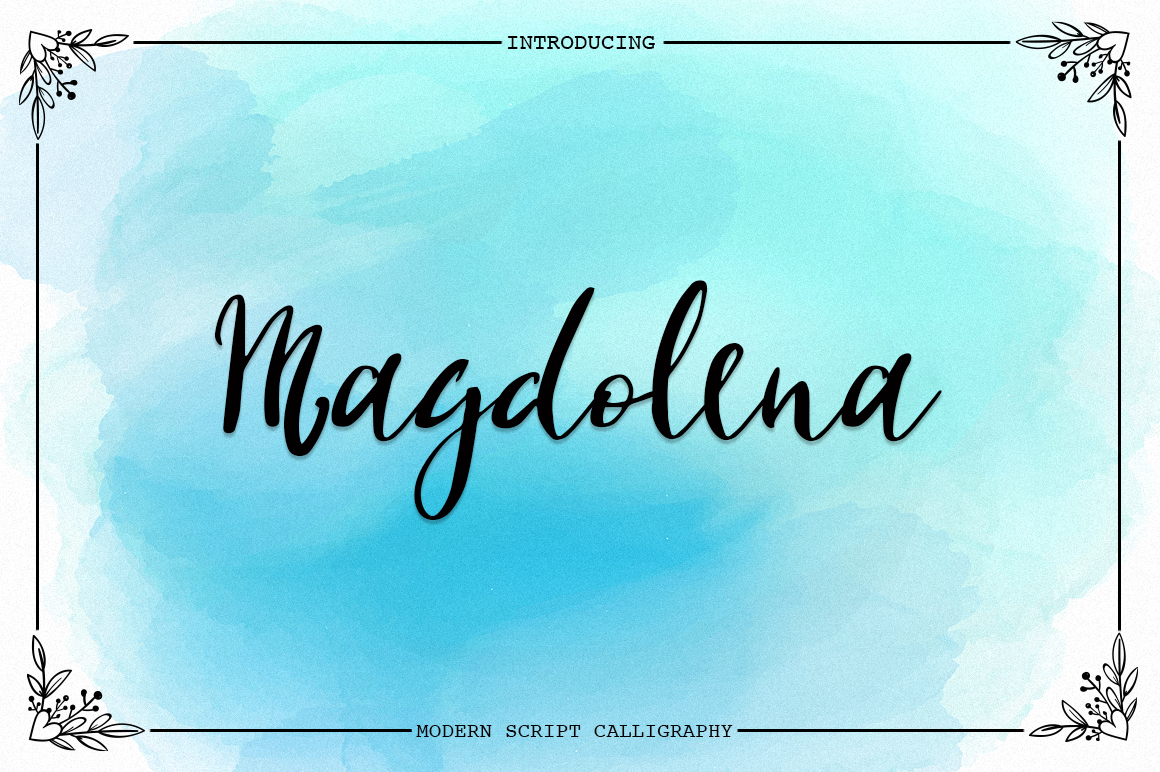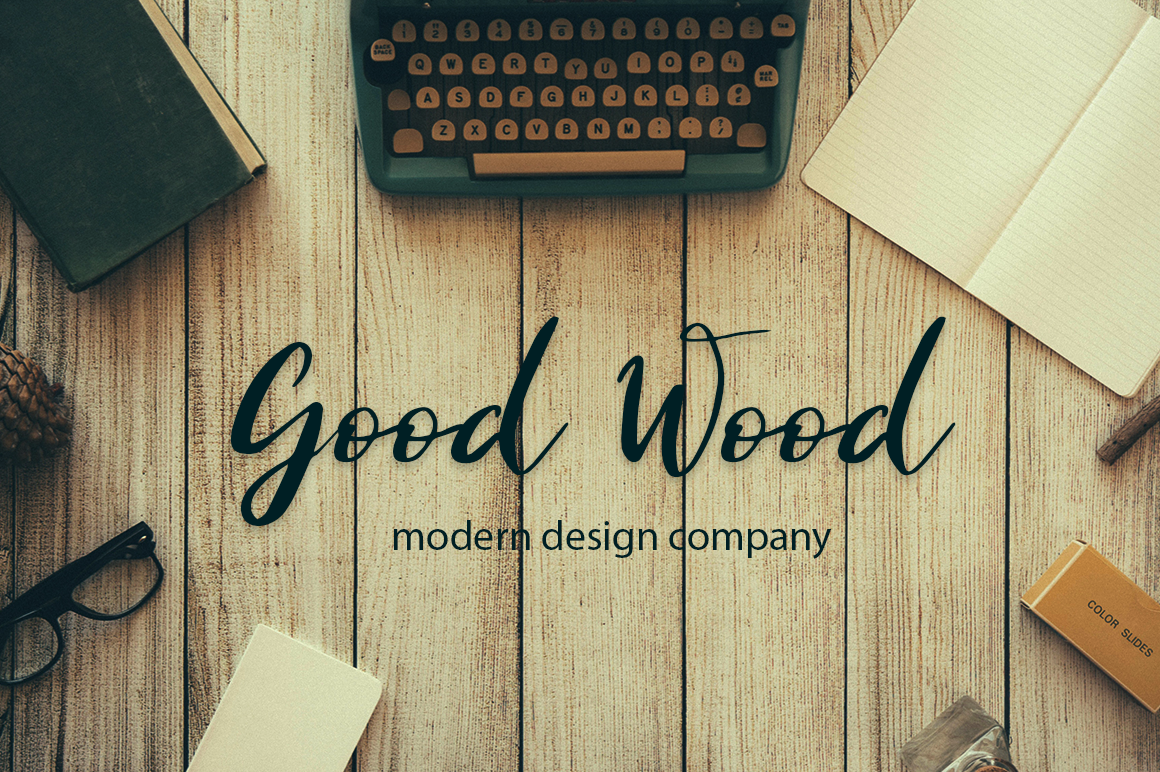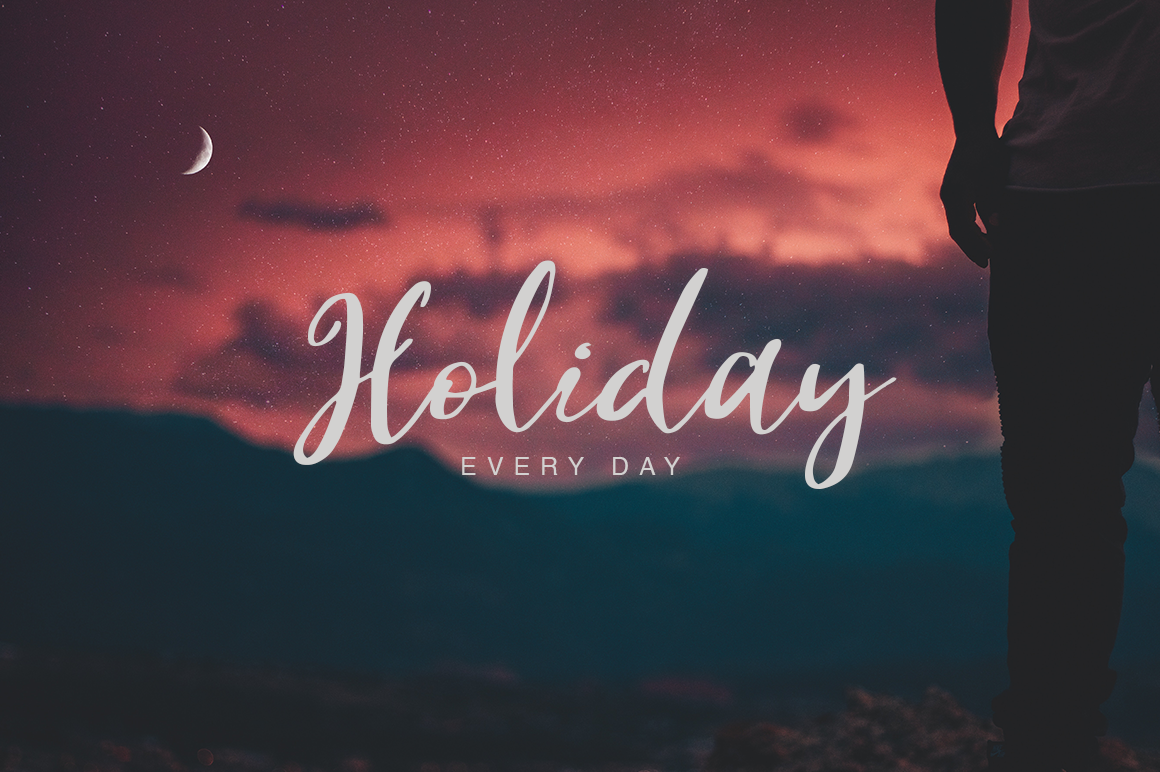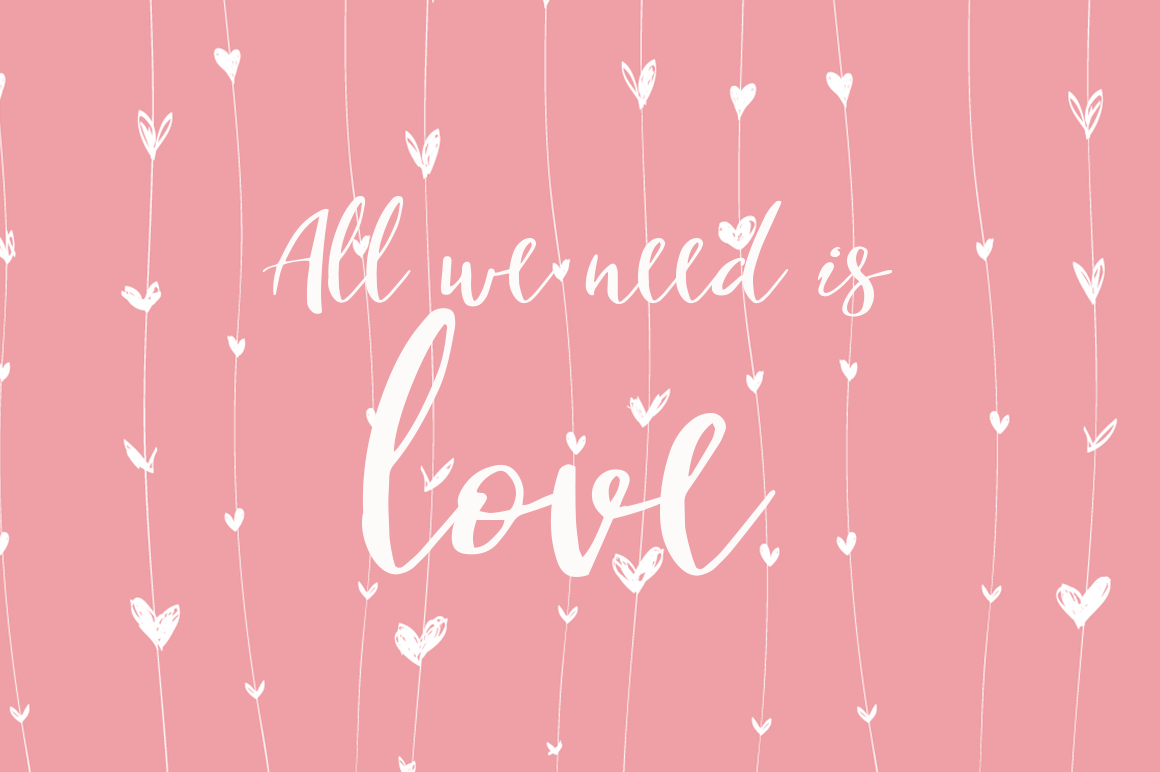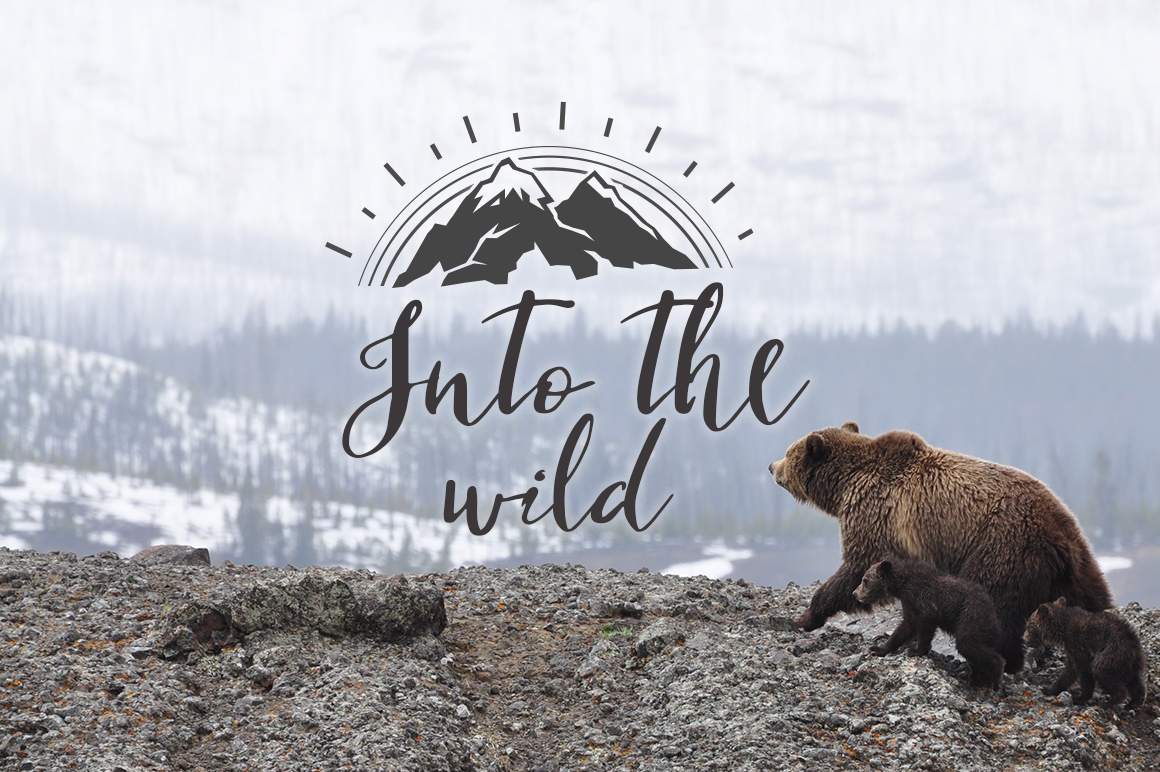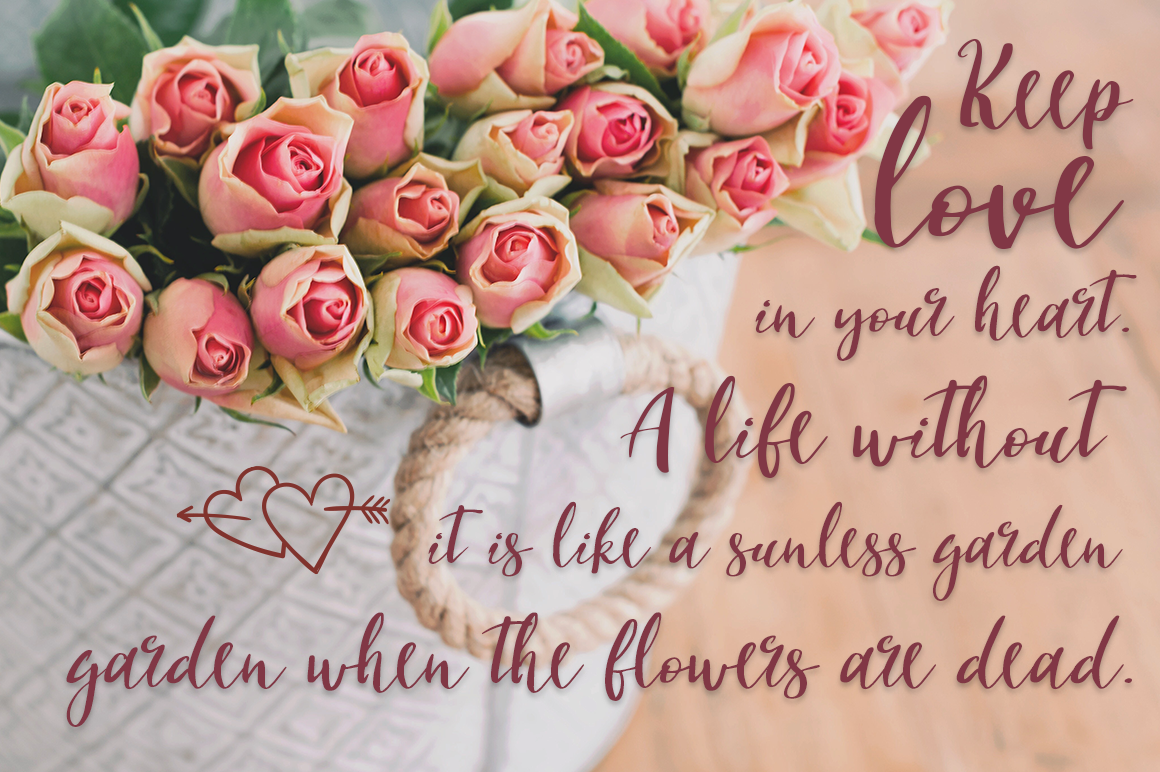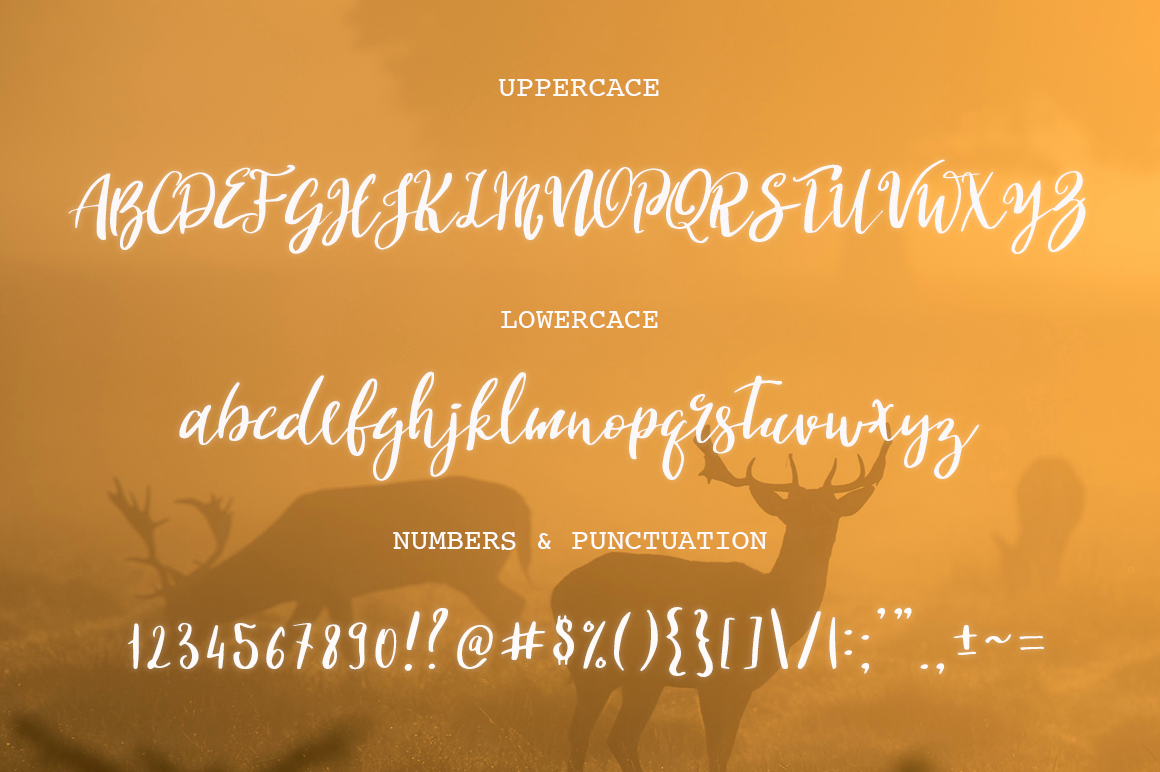
HomeScript FontsMagdolena Font Script Fonts Magdolena Font FacebookXPinterestWhatsApp Magdolena Font Poster 2 Magdolena Font Poster 3 Magdolena Font Poster 4 Magdolena Font Poster 5 Magdolena Font Poster 6 Magdolena Font Poster 7 About Magdolena Font Magdalena script is a handwritten font that is perfect for adding a personal touch to your designs. DOWNLOAD ON CREATIVE FABRICAThis font is sold and delivered by Creative Fabrica. Font Canyon may earn a commission if you buy through this link. People also explored Caligature Hunters Font Annabeth Font Guttawa Font Nobu Collections Font Black and Violet Font Hey Holiday Font Khuas Font Sweet Pineapple Font SK Curiosity Font 300 0 TagsMagdolena Font Previous articleQuarter FontNext articleNatalia Font LEAVE A REPLY Cancel reply Comment: Please enter your comment! Name:* Please enter your name here Email:* You have entered an incorrect email address! Please enter your email address here Website: Save my name, email, and website in this browser for the next time I comment. Personal Use Free Omira Personal Use Free Read more about this font Equalizer Script Personal Use Free Read more about this font Hunting Font Personal Use Free Read more about this font Ailand Personal Use Free Read more about this font BLOG Top 10 Handwritten Fonts That Elevate Your Designs Top 10 Handwritten Fonts That Will Elevate Your Designs Handwritten fonts bring a warm, personal touch to every creative project. Whether you're designing logos, invitations,... How to Cut Any Font on Cricut: Convert a Font to SVG (Free) Elegant Wedding Invitation Fonts – Handwritten & Script Fonts Top 7 Google Fonts Alternatives for Faster and Privacy-Friendly Web Design (2025)